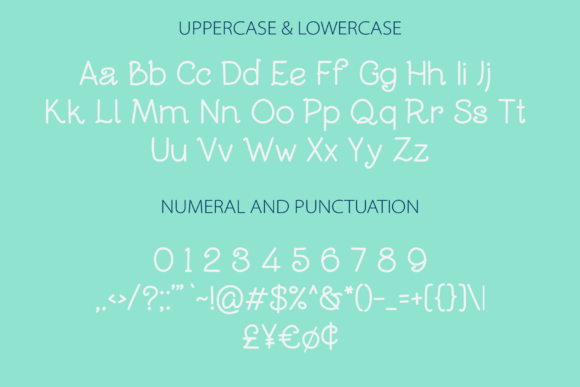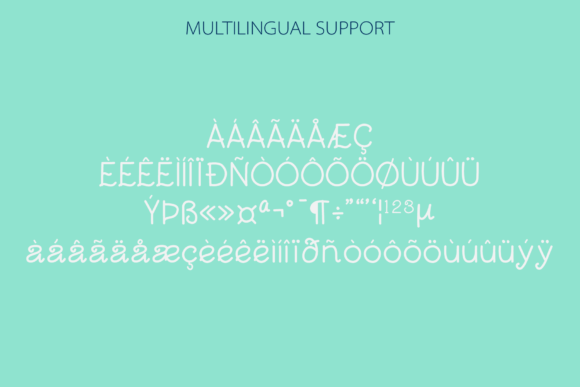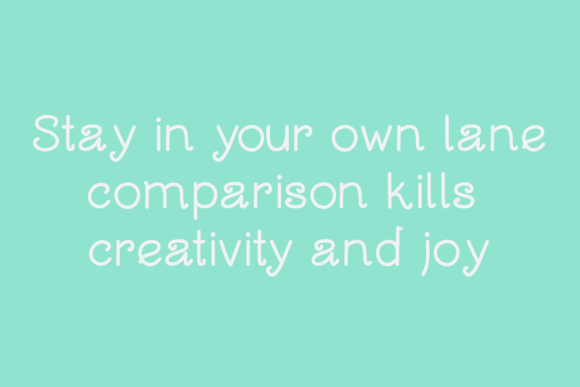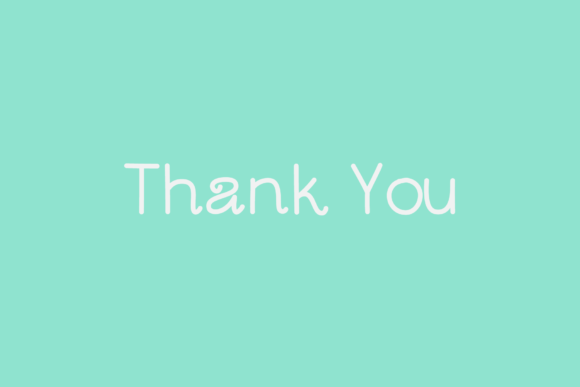
Introduction to Morningdale Font
As designers, we’ve all been there – staring at a blank page, trying to bring a creative project to life. The blank space can be intimidating, but the right design resource can spark inspiration and set the tone for a beautiful piece. For those looking to add a touch of whimsy and personality to their work, the Morningdale Font is an excellent choice.
With its playful, handwritten style, the Morningdale Font is perfect for designs that require a more personalized and approachable feel. Whether you’re creating a wedding invitation, a thank you card, or a logo, this font is sure to add a touch of warmth and charm to your design. Its high quality and versatility make it a valuable asset for designers, allowing them to create unique and eye-catching pieces with ease.
Key Features of Morningdale Font
- Unique, elegant script font ideal for creative projects and design resources.
- Great for creating invitations, posters, logos, and other design elements that require a touch of elegance and sophistication.
Honest Review: Morningdale Font
As a designer, I’m always on the lookout for high-quality design resources to elevate my creative projects. Recently, I stumbled upon the Morningdale Font, and I must say it’s been a game-changer.
What works well: ✨ The Morningdale Font is incredibly versatile, suitable for a wide range of projects, from logos to brochures. The clean and modern design makes it perfect for creating a professional and sleek look. I also appreciate the transparent background option, which allows for seamless integration with any design element.
- High quality: The Morningdale Font is crafted with precision, resulting in a smooth and professional look.
- Design resource: This font is a fantastic resource for designers looking to create a unique and eye-catching design.
What doesn’t work well: ⚠️ While the font is incredibly versatile, it may not be the best choice for projects that require a bold or dramatic font. Additionally, the font may not be suitable for certain design elements, such as text overlays or icons.
Morningdale Font is ideal for creative projects, such as logos, branding, and marketing materials. It’s also suitable for educational resources, such as presentations and documents, requiring a professional and creative touch.